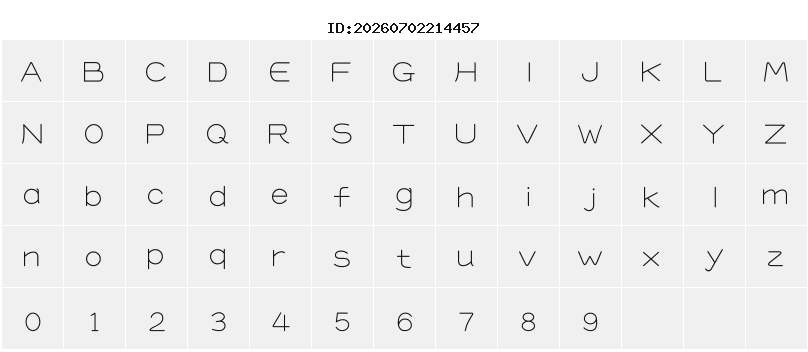
012-上首秀圆体 Preview
About 012-上首秀圆体.ttf
012-上首秀圆体.ttf is a modern, elegant sans-serif font designed for ultimate readability and visual harmony. Perfect for branding, headlines, web design, and print materials.